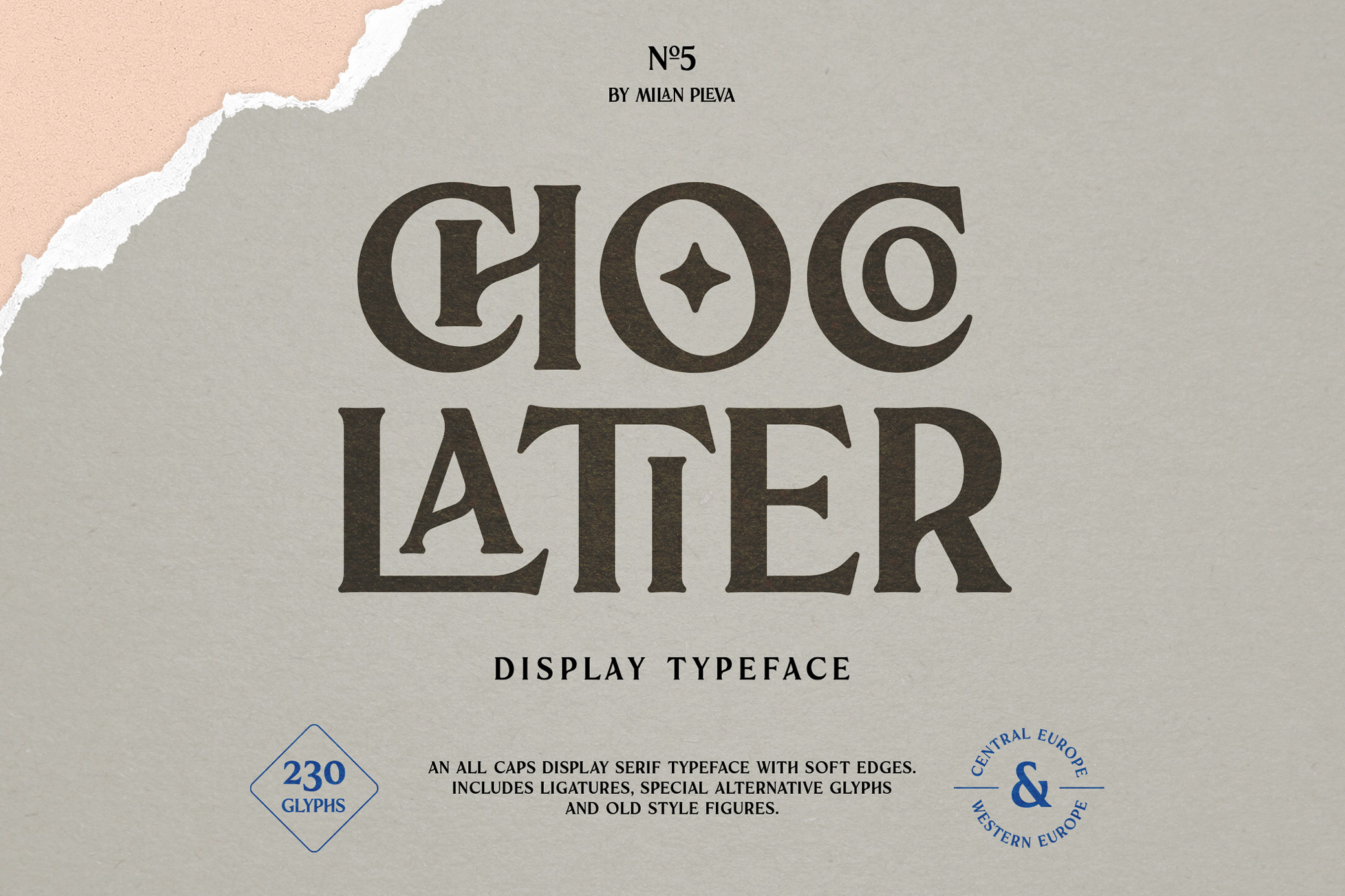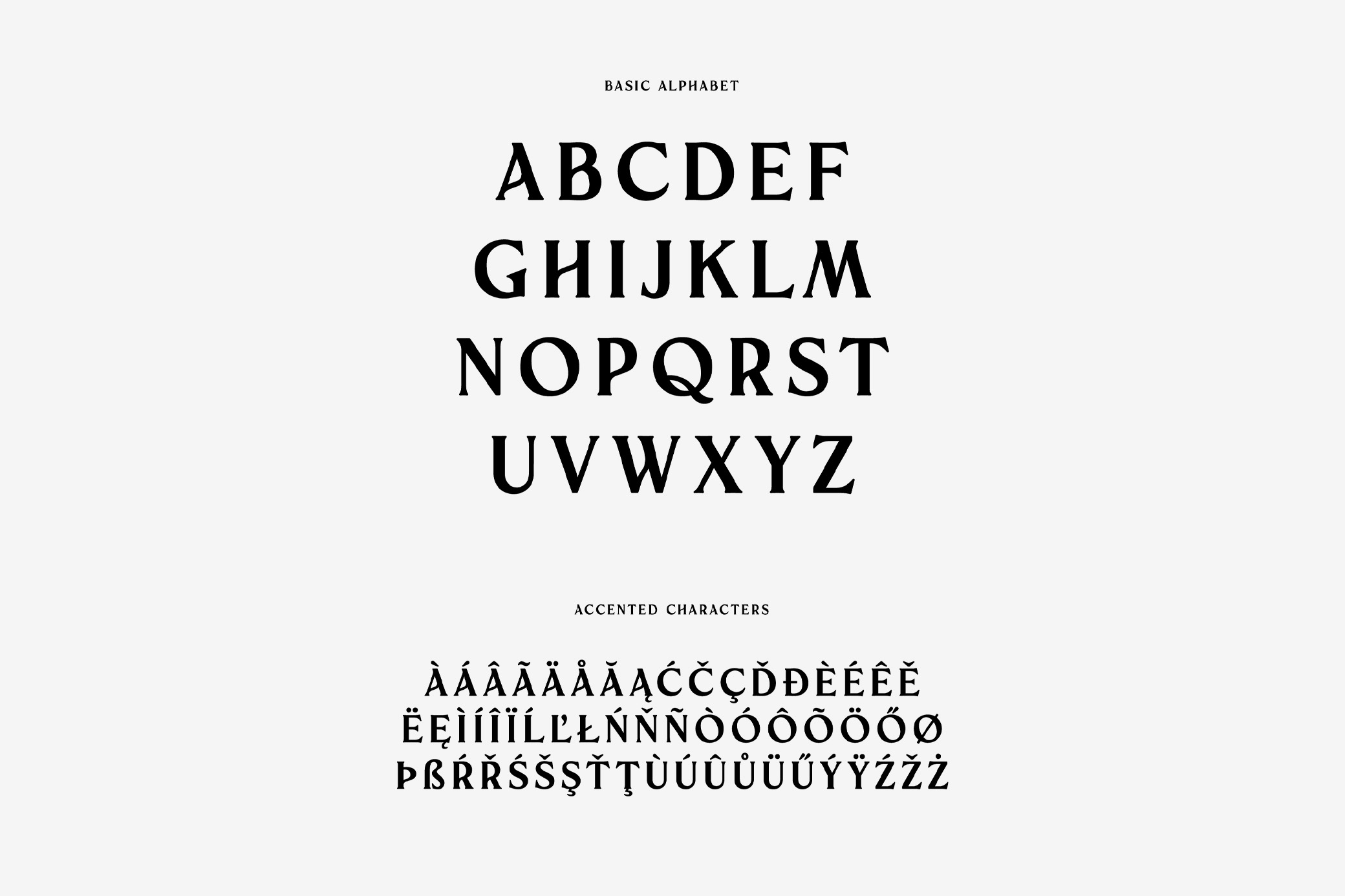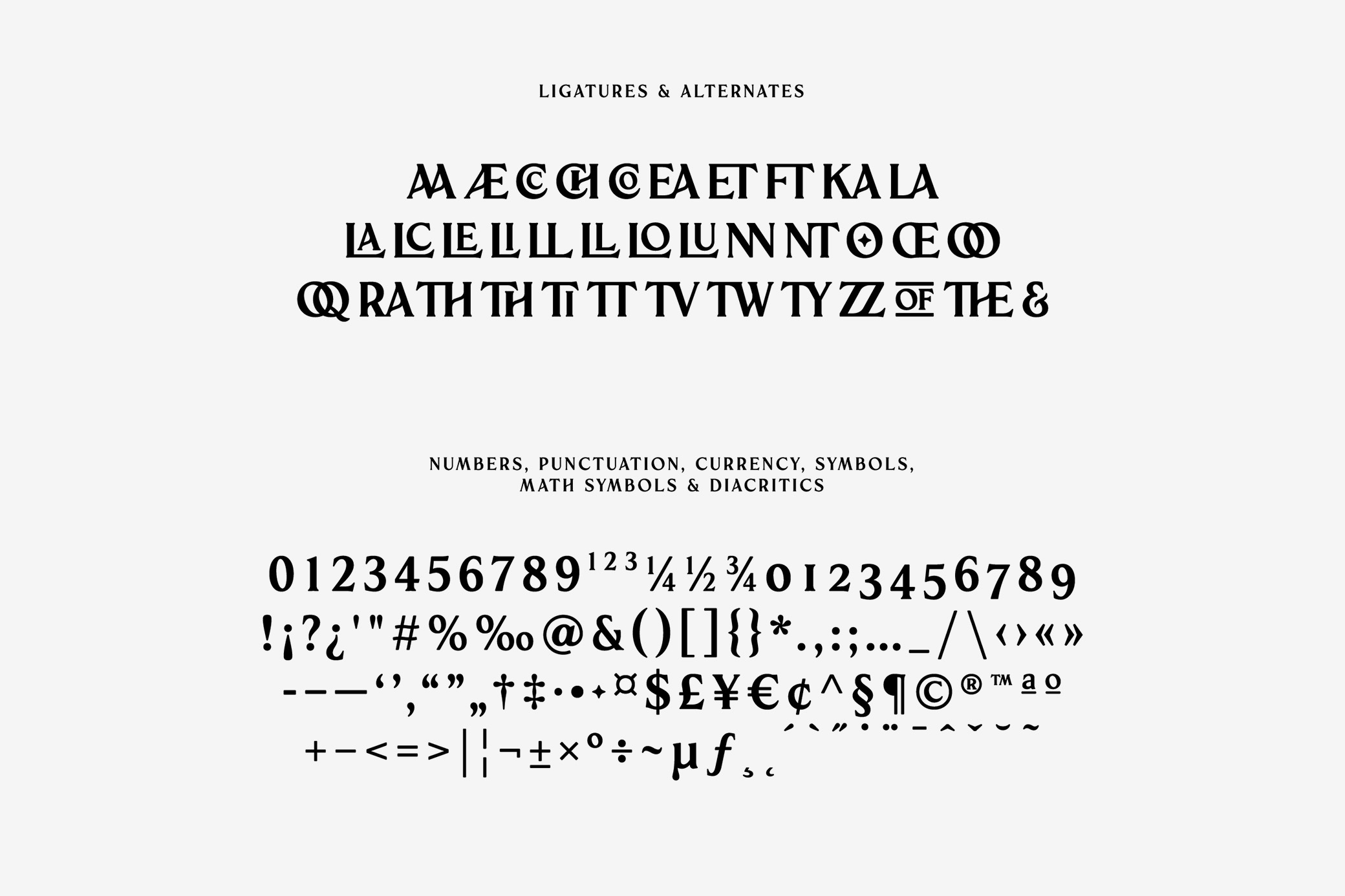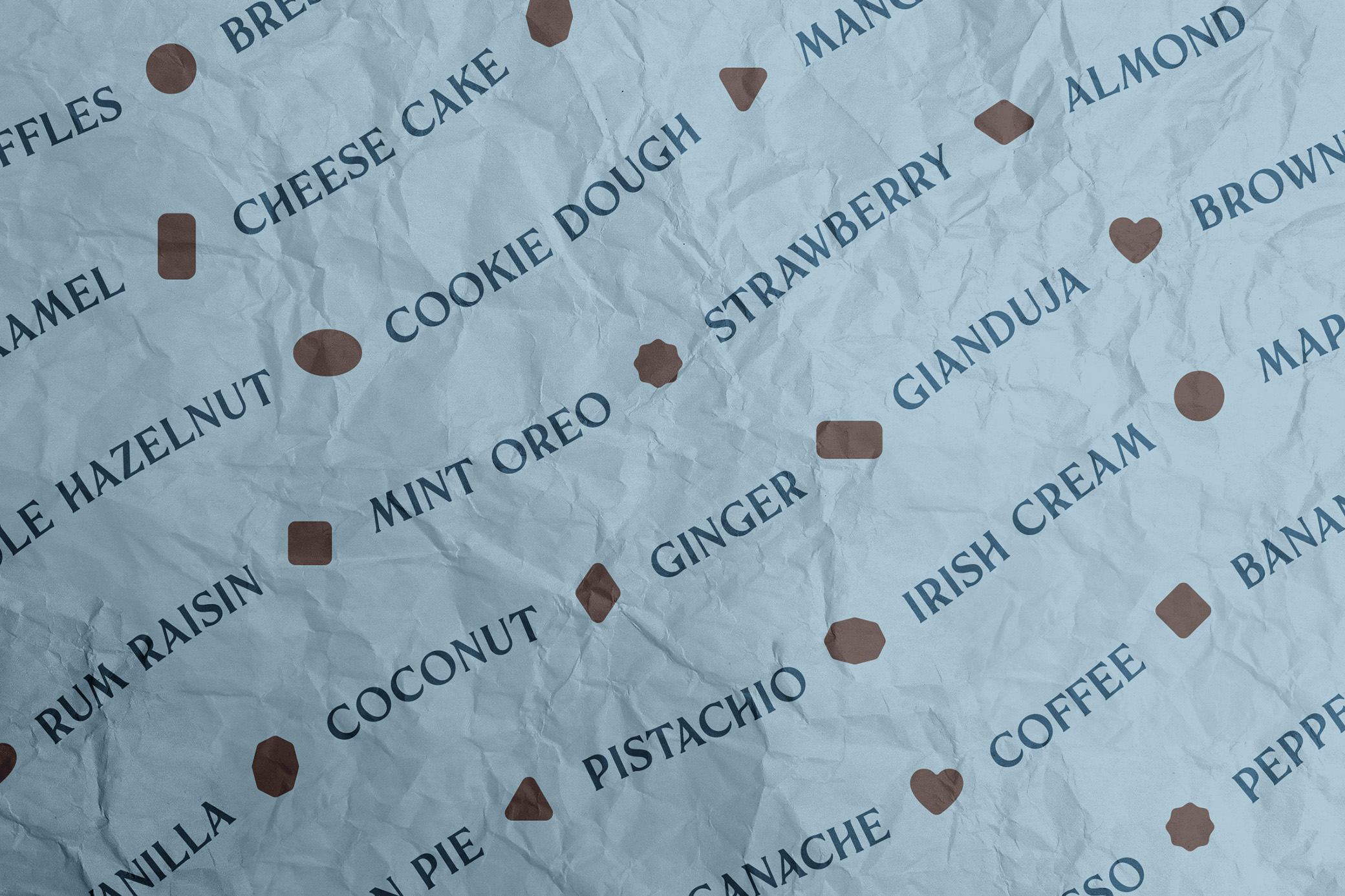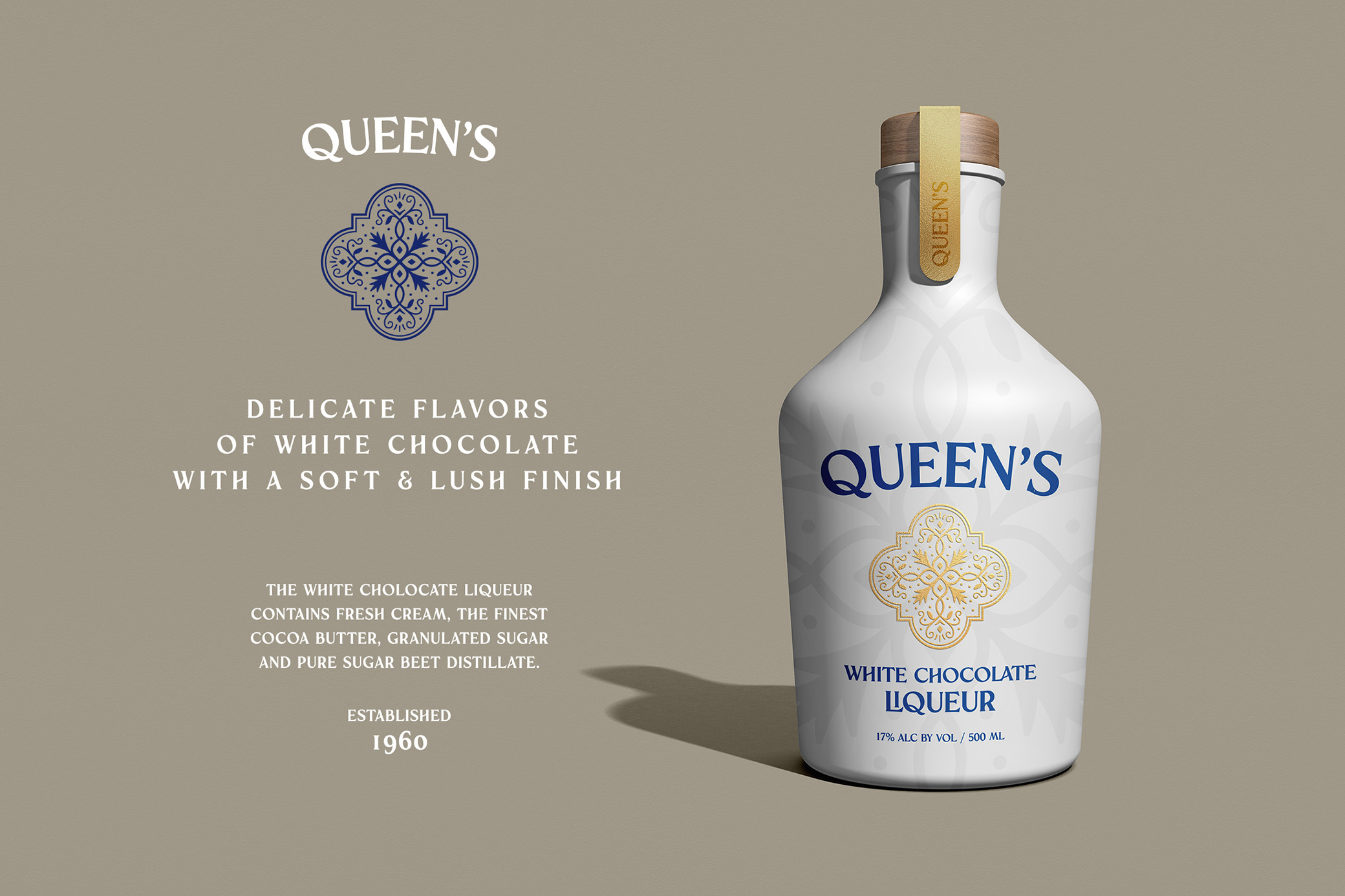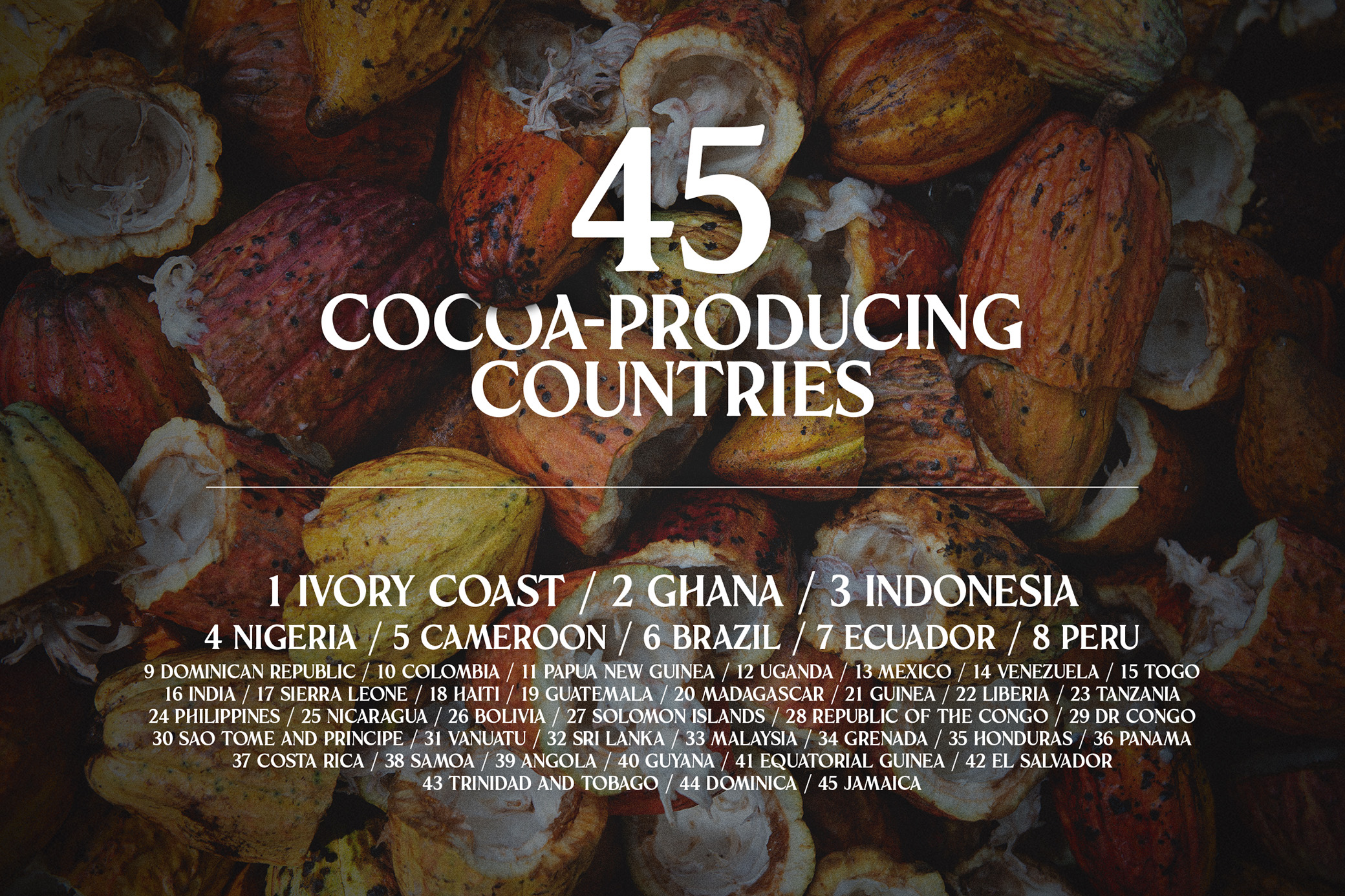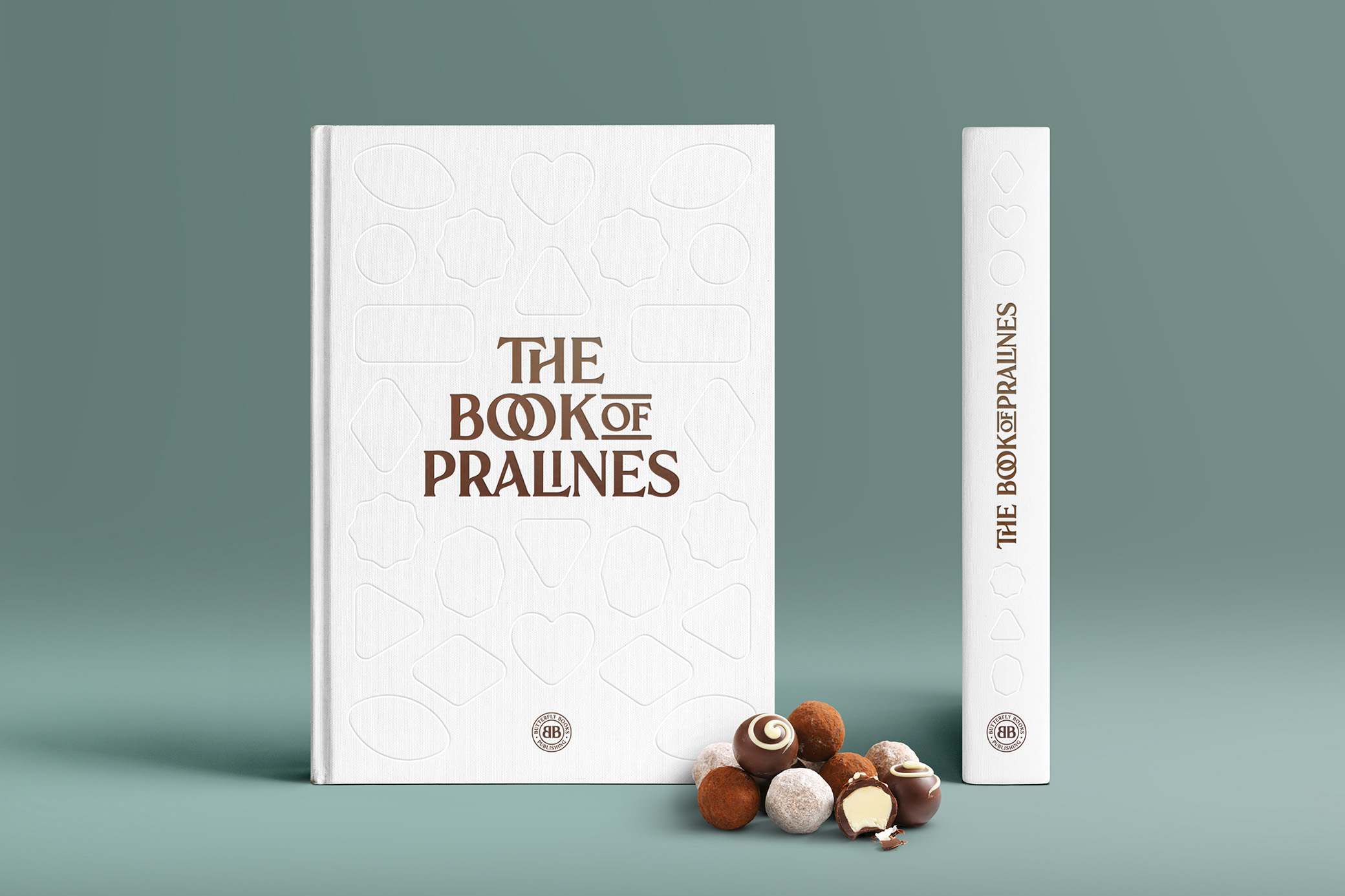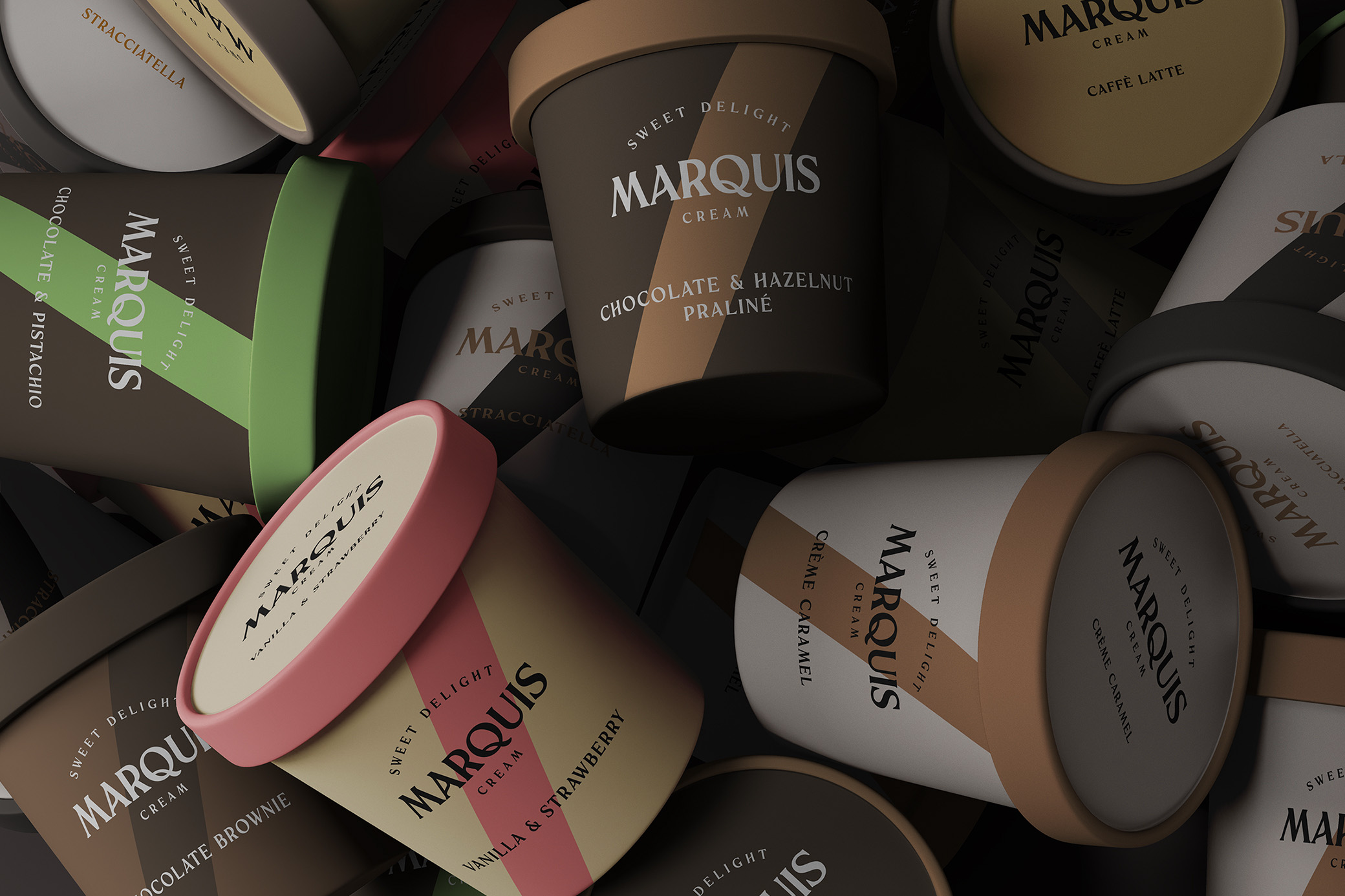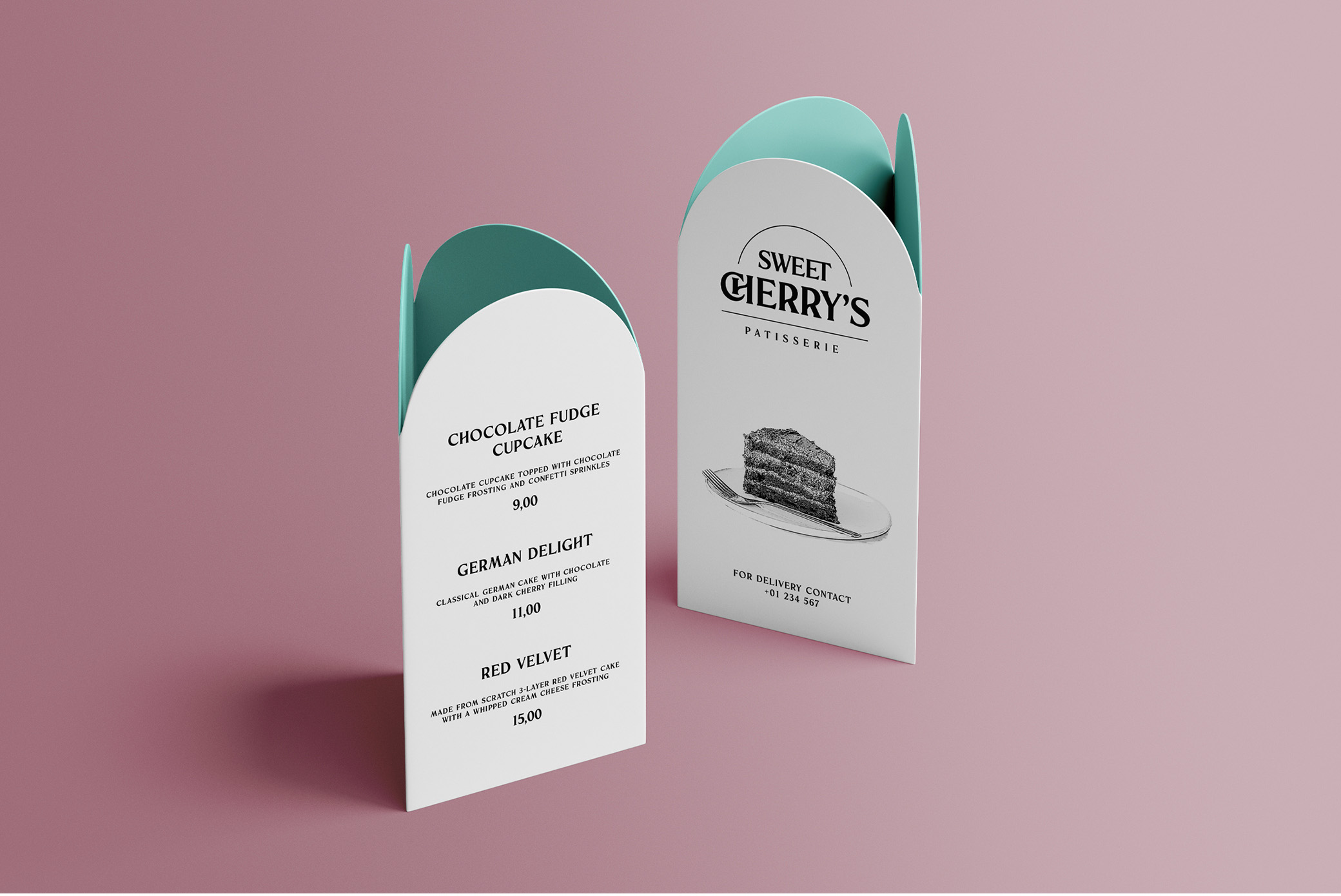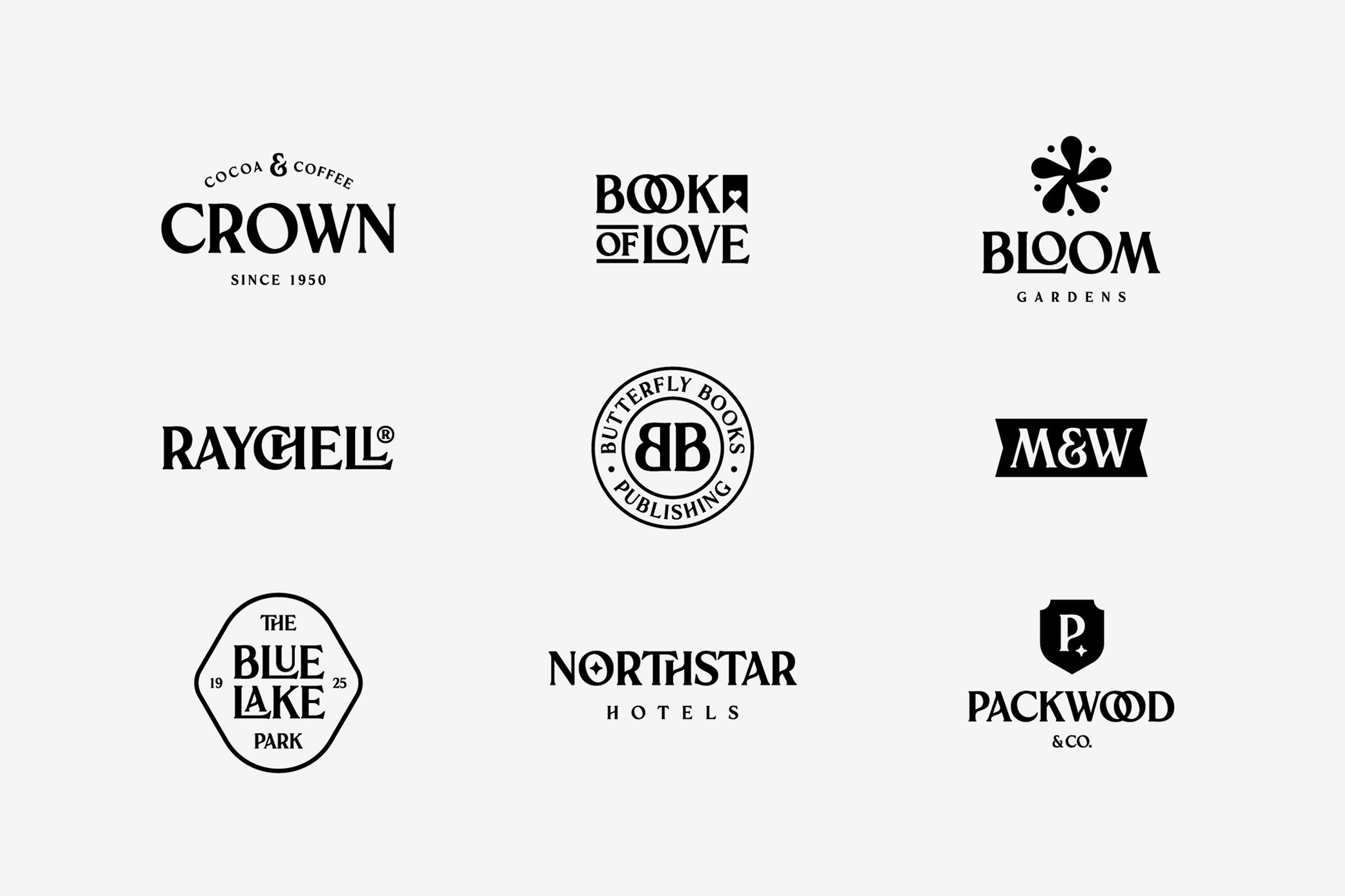
Chocolatier Display Font
If there's a gourmandize in typography, it should be portrayed with Chocolatier. It's a vintage font, but not an ordinary one. You'll see for yourself what a perfect match it makes with any food branding, from spirits to confectionery.
Despite its solid retro vibe, Chocolatier is a go-to type that is ready to charm with its elegant serif characters and variety of characters. It includes ligatures, special alternative glyphs, and old-style numerals. Not to mention a complete character set, plus multilingual support, perfectly designed to convey your aesthetical vision in packaging and logos.